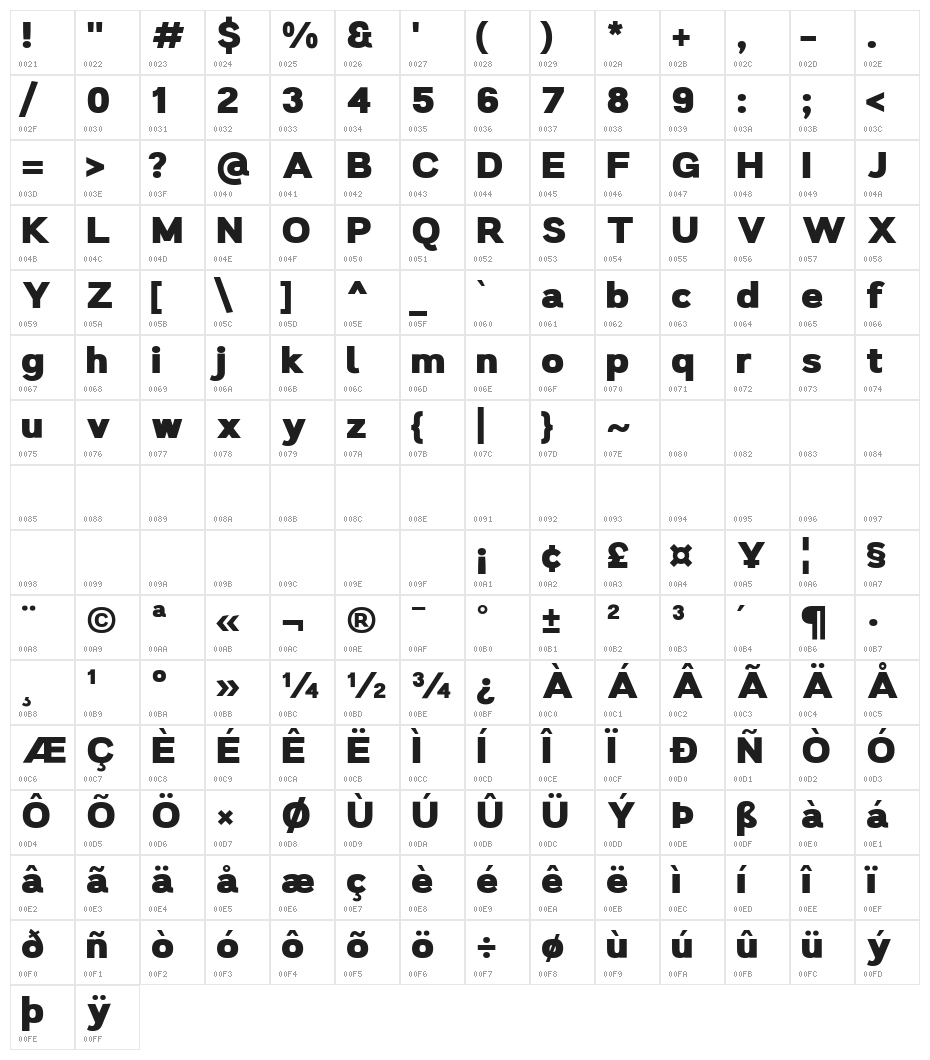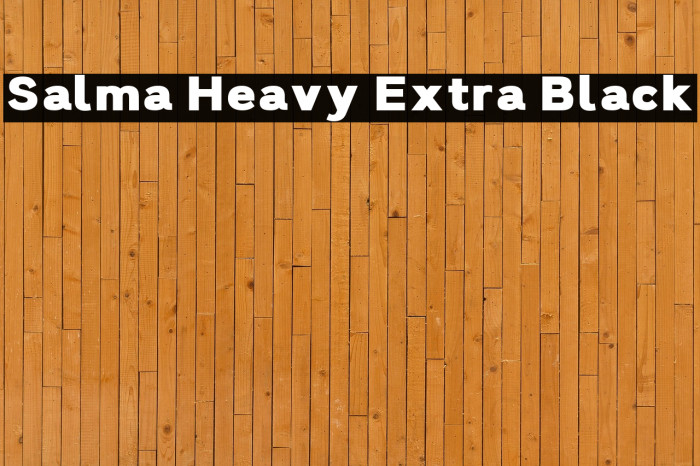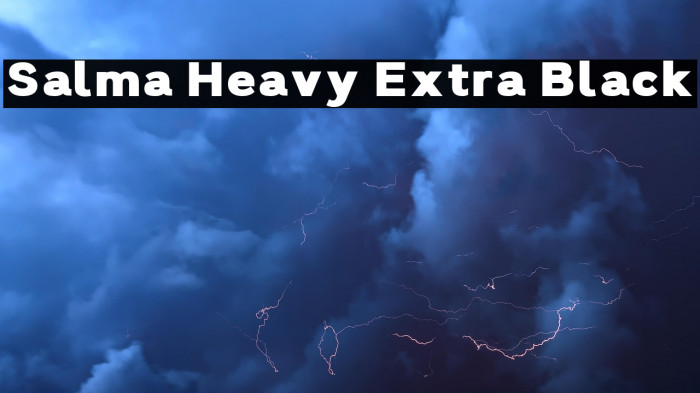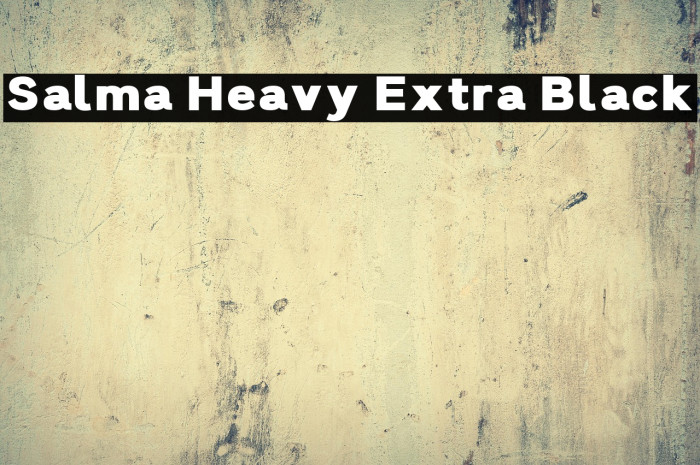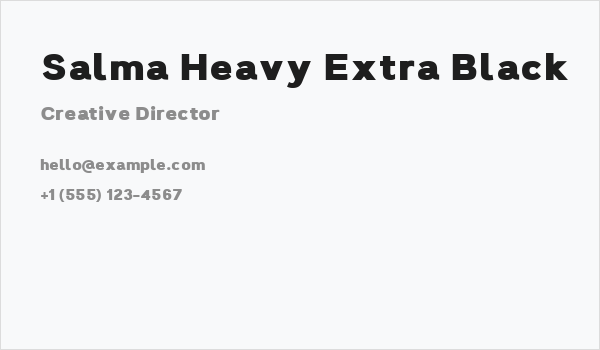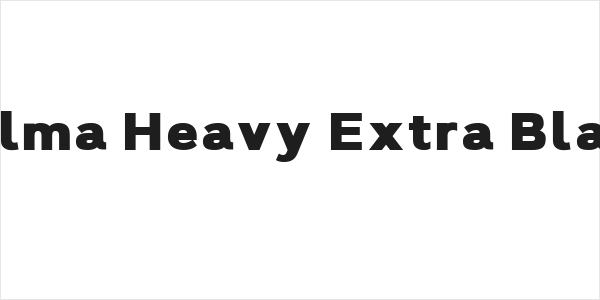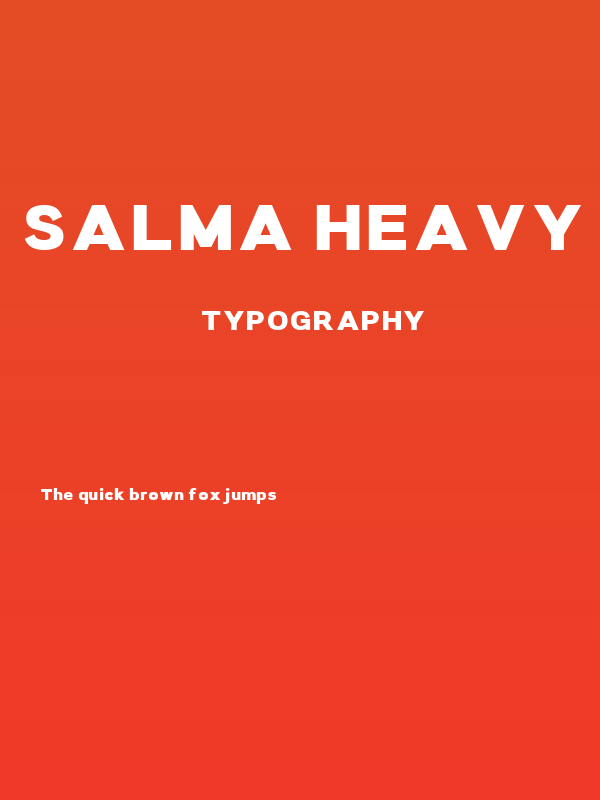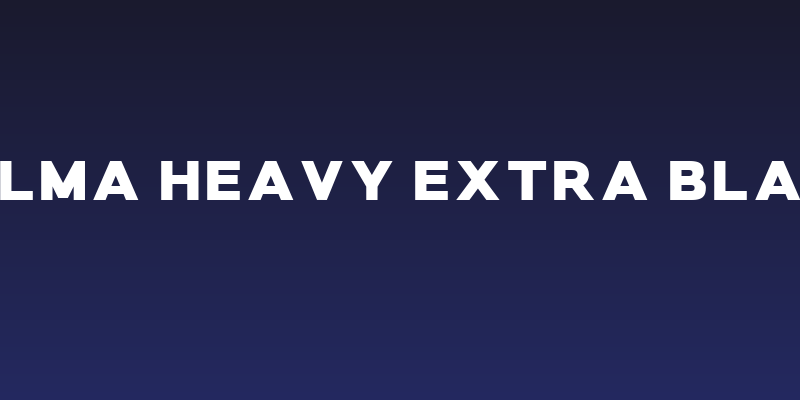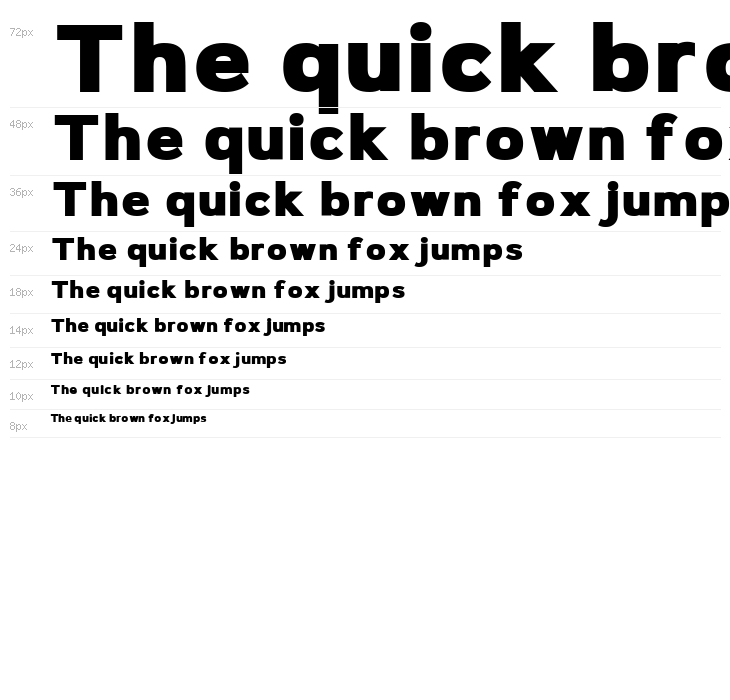
Salma Heavy Extra Black Font
Salma Heavy Extra Black Description
This font exhibits a bold and commanding presence with its heavy weight and strong lines. The characters are robust and impactful, making it ideal for attention-grabbing headlines and statements. The uppercase and lowercase letters maintain a consistent thickness, contributing to a cohesive and solid appearance. The numerals and special characters are equally bold, ensuring uniformity across all text elements. The overall design is modern and straightforward, with a focus on clarity and readability.
| Proposed Projects | Ideal for branding, advertising, posters, and any project requiring a strong visual impact. |